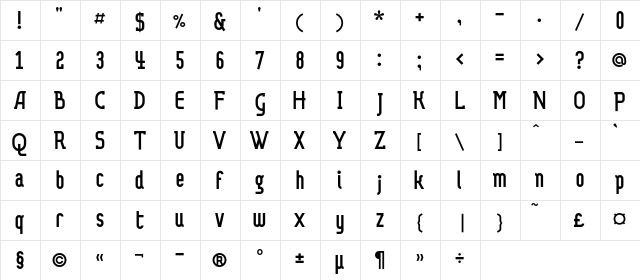
DvaProbelaC Regular
Design Context for DvaProbelaC Typeface
DvaProbelaC takes a measured approach to typography — its balanced proportions and neutral character make it a reliable workhorse for both digital and print work.